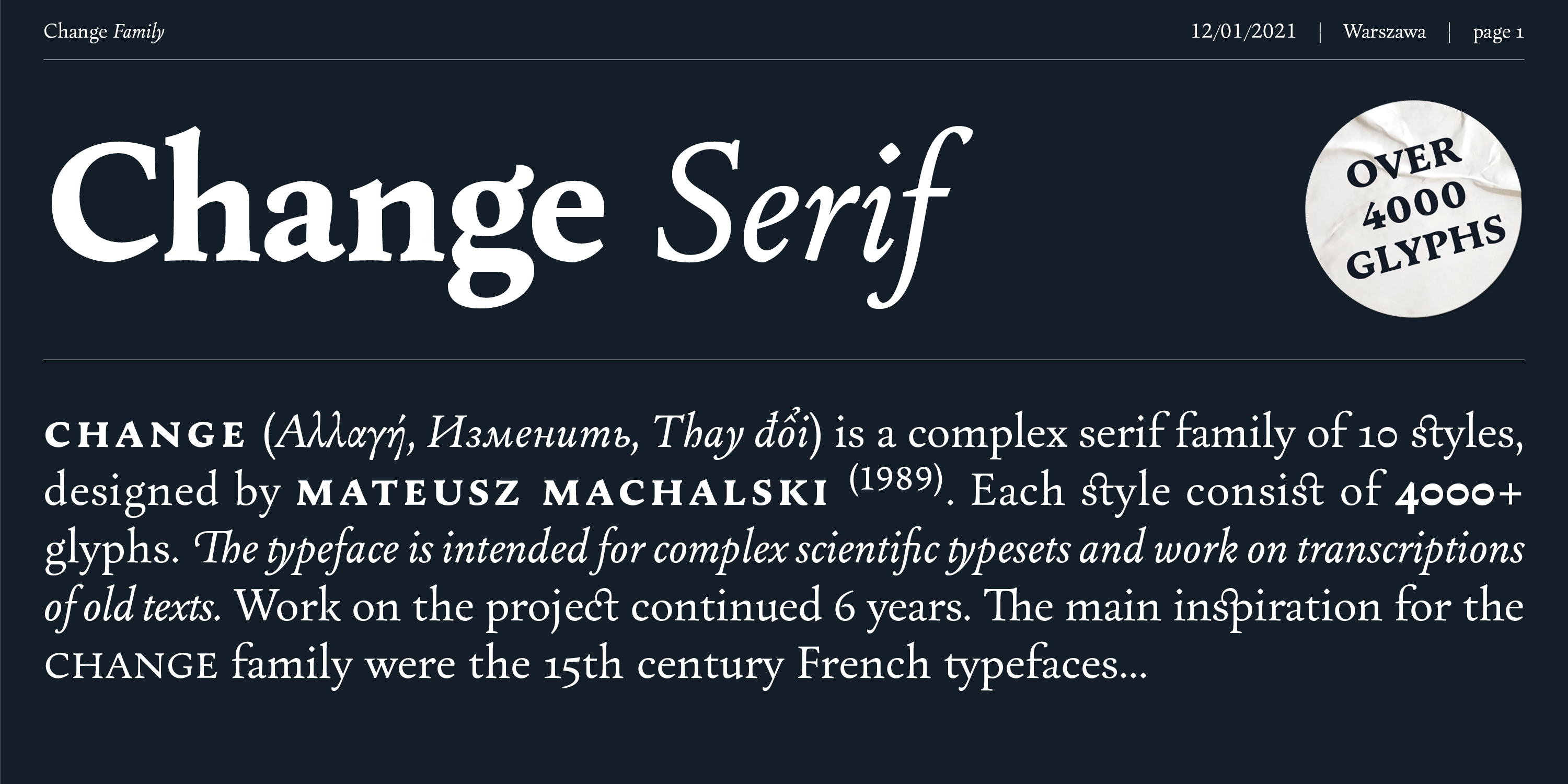
This elegant typeface shines in editorial design, luxury branding, wedding invitations, book typography, academic publications, legal documents, fine art catalogs, and premium product packaging. Its refined characteristics make it exceptional for both traditional print media and sophisticated digital presentations.
Change Serif Font generates excitement through its remarkable fusion of classical serif traditions with innovative contemporary touches. The font's graceful curves and precise serifs create an atmosphere of elegance and trustworthiness that captivates readers. Its meticulously designed letterforms deliver exceptional legibility while maintaining distinctive character that sets brands apart from competitors.
The Change Serif Font family includes comprehensive weight variations such as thin, light, regular, medium, bold, and black, along with corresponding italic styles. Each family member preserves the core design DNA while offering distinct personalities for various typographic applications. This extensive collection empowers designers to establish sophisticated visual hierarchies and maintain consistency across complex design systems.